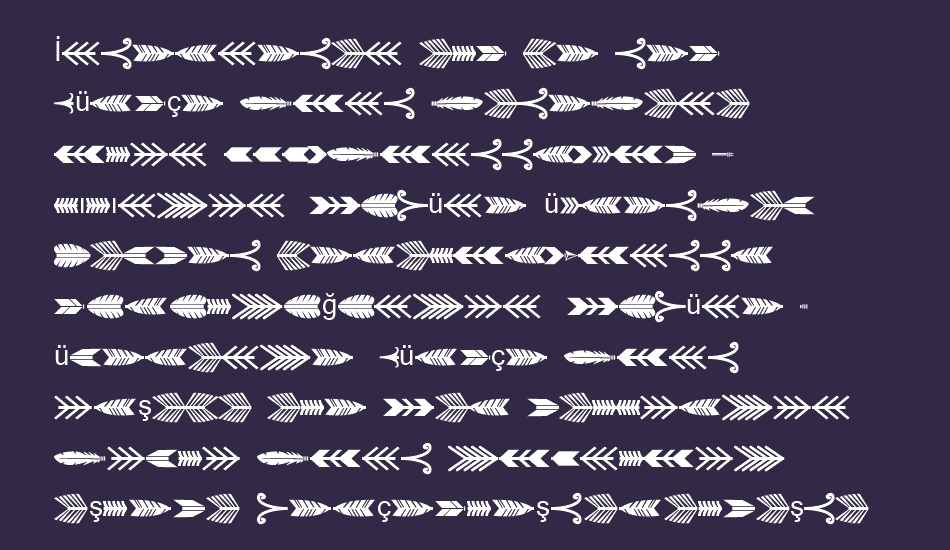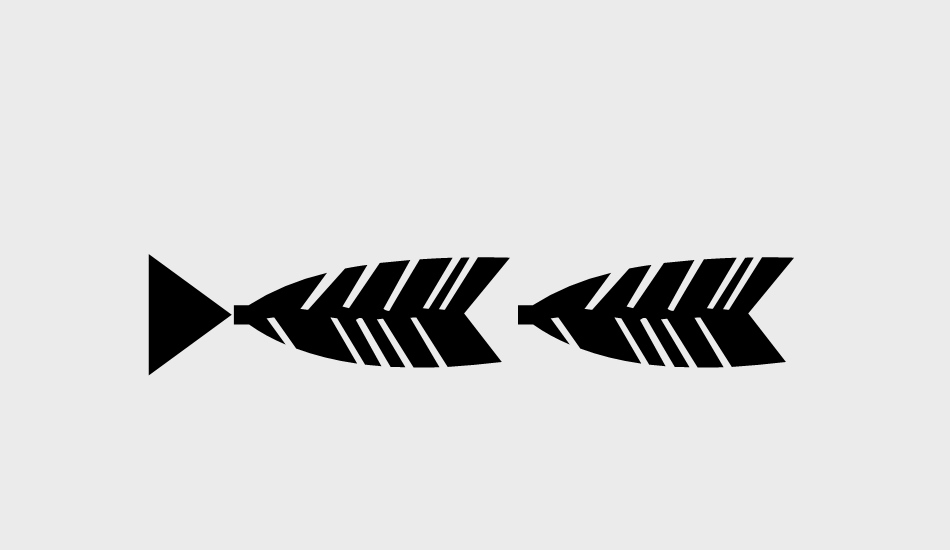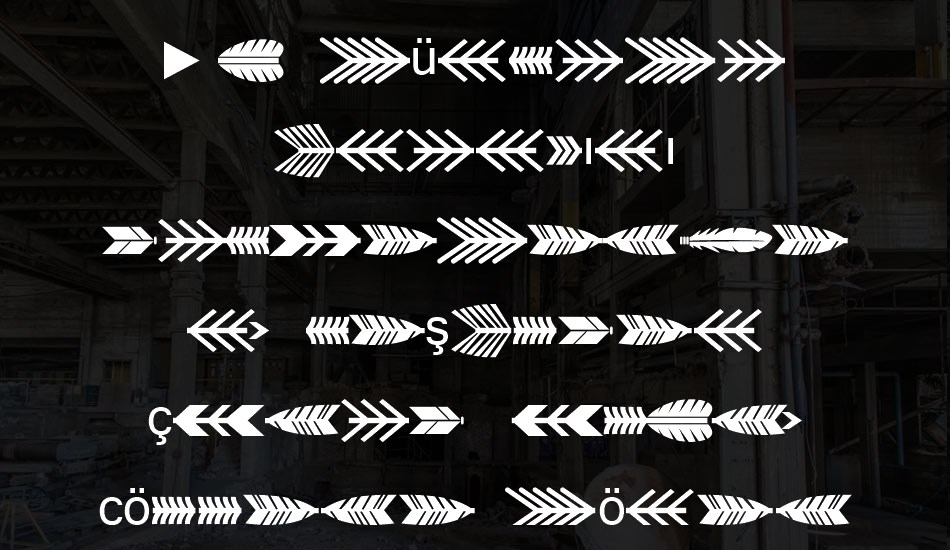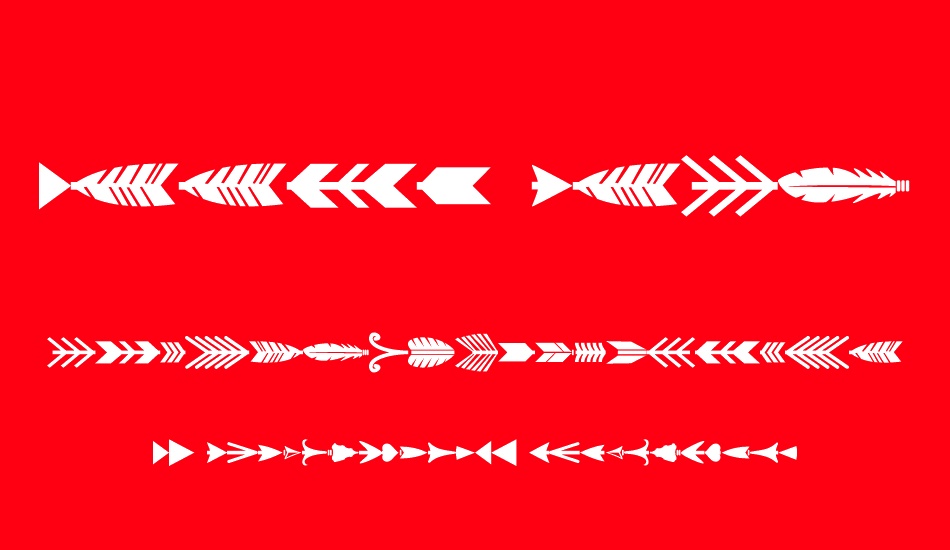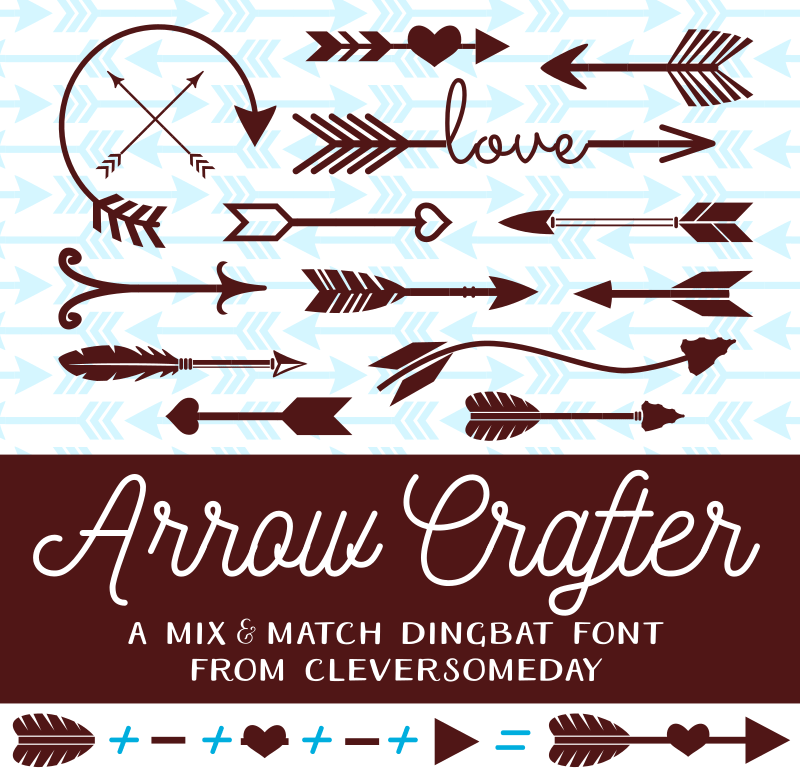
Arrow Crafter font
* Shift characters are arrow heads?* Non-shift characters are arrow tails
* A few characters can be used as either heads to tails
* 0-9 are shaft sections
* A-M and a-m are right facing
* N-Z and n-z are left facing
* a number of pieces do not have attached shaft sections or stubs. These work well for wrapping text to a path or for when you want to change the proportions of an element with respect to the shaft.